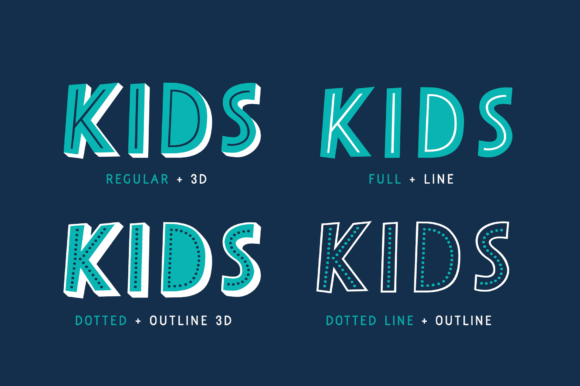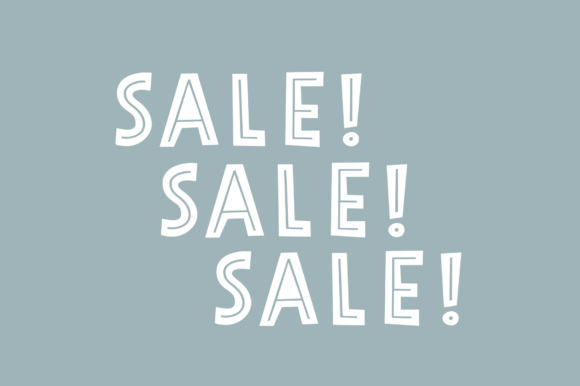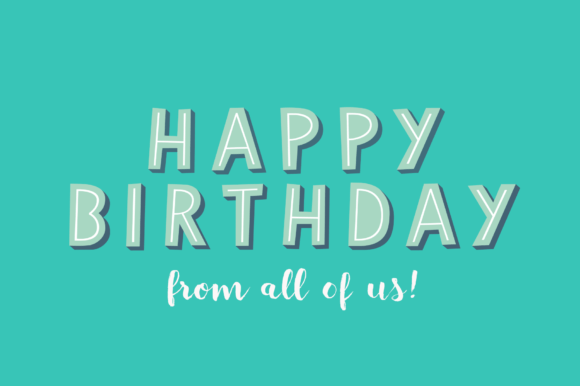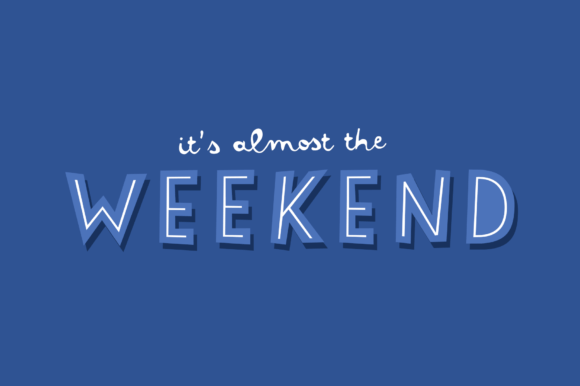
Papercute Inline is a cute layered hand-drawn font designed by Fanny Coulez & Julien Saurin in Paris. Inspired by paper cutting, this font is easy to read, and easy to play with 8 different styles, including 3D, outline, full or dotted line, that you can use alone or together. To do so, you can simply superimpose them with a compatible software like Photoshop, then choose a color for each, making your works charming and unique.
Papercute Inline Font